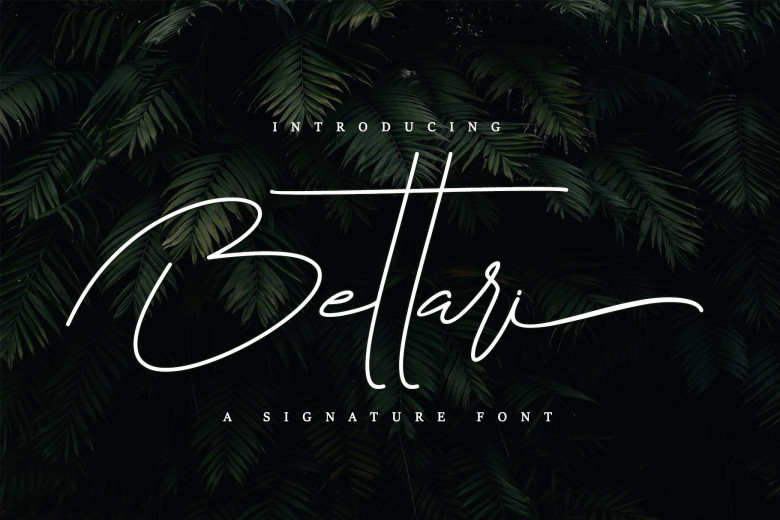
Bettari Font is a sweet, delicate, dainty and joyful handwritten font contains uppercase, lowercase, number, punctuation and symbols by tinyhandletter. It looks stunning on wedding invitations, thank you cards, quotes, greeting cards, logos, business cards and every other design needs a handwritten touch.
Bettari Handwritten Script Font
Very nice font, Elegant, adventurous, its a cool Font